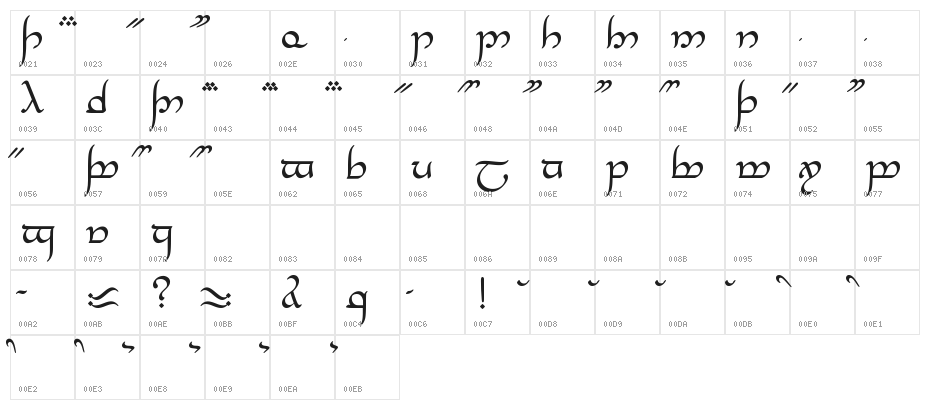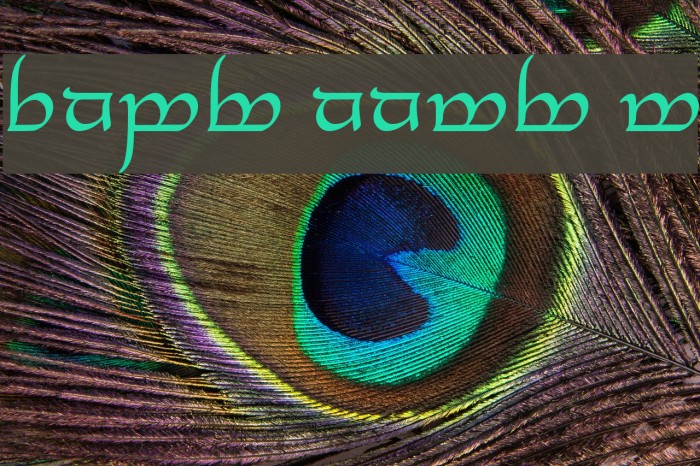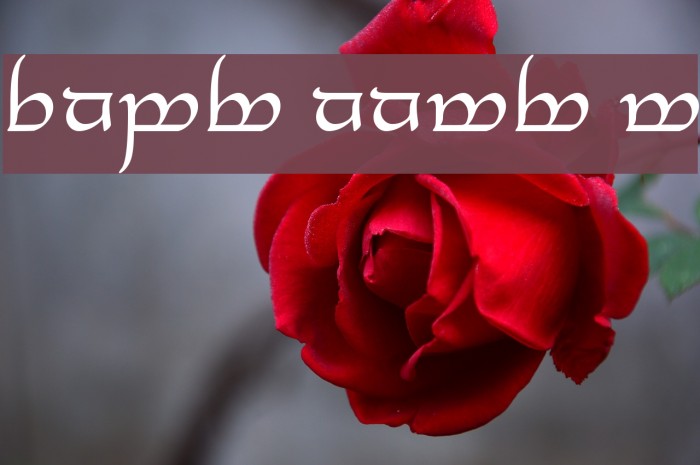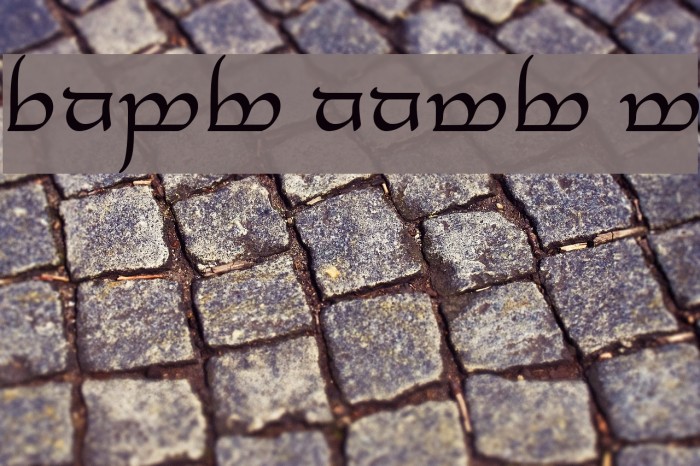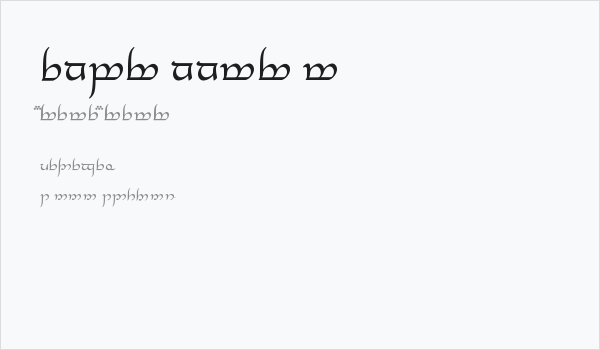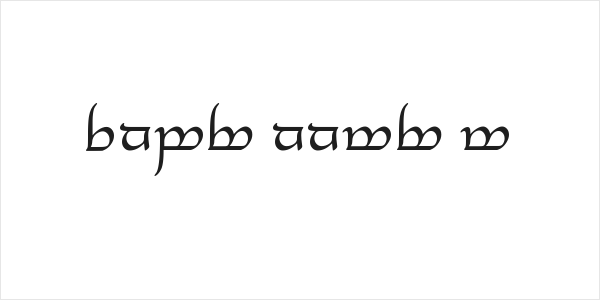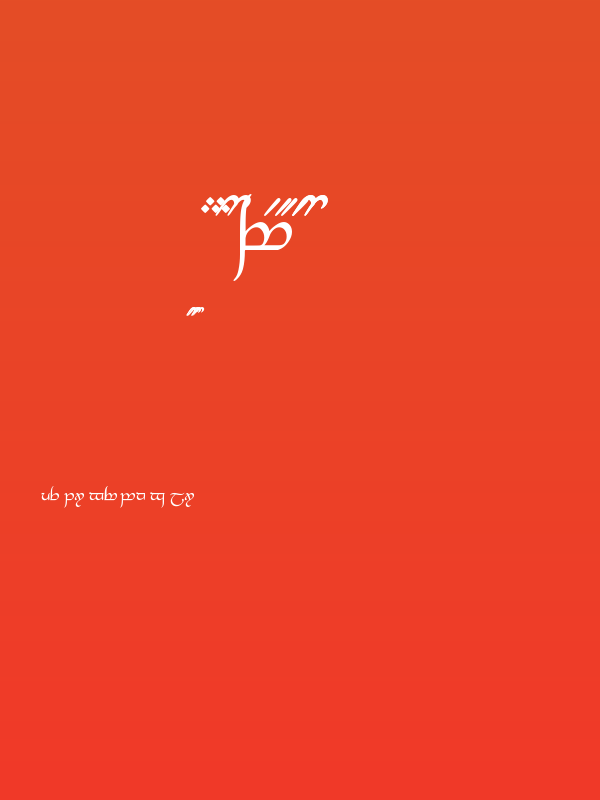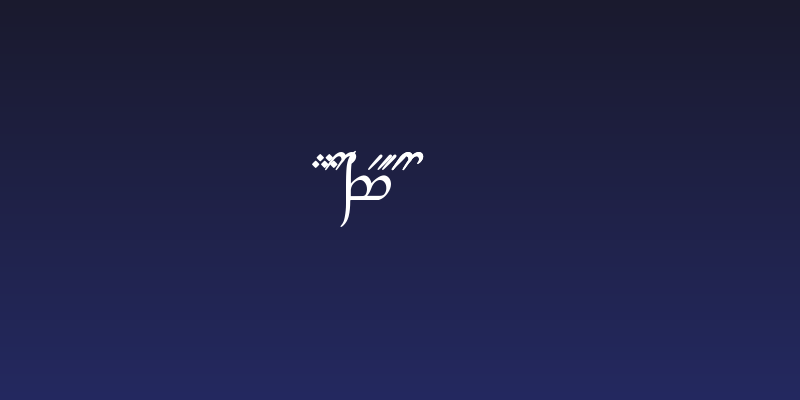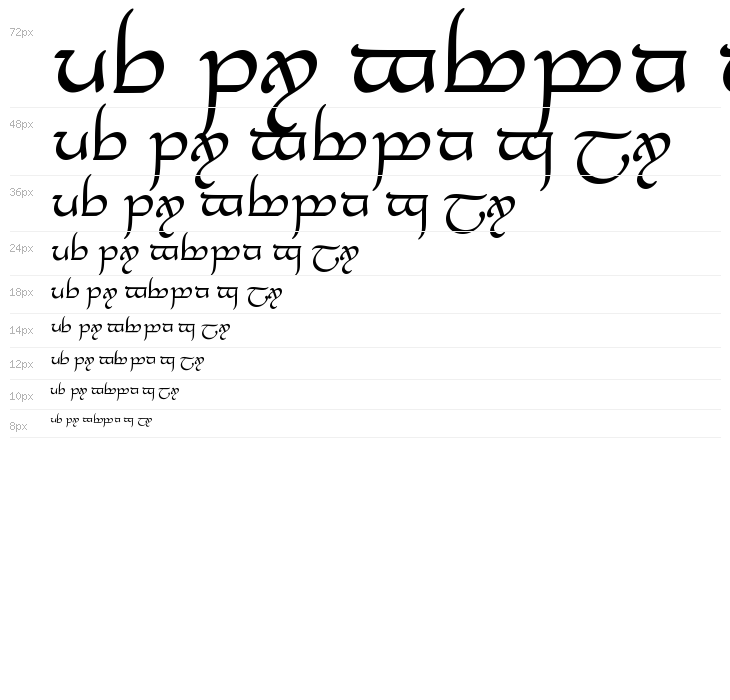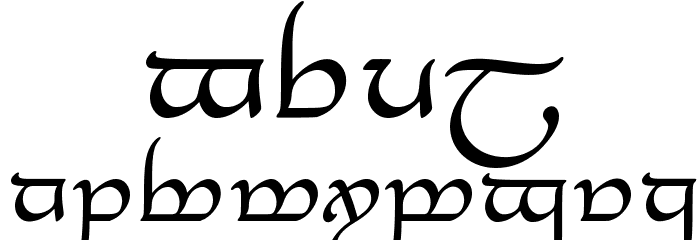
Tengwar Annatar Alt Font
Tengwar Annatar Alt Description
This font is a decorative script inspired by the fictional Elvish writing system from J.R.R. Tolkien's Middle-earth. It features elegant, flowing characters with intricate curves and flourishes, reminiscent of ancient calligraphy. The script is highly stylized, with each letterform exhibiting unique, ornate details that evoke a sense of fantasy and mysticism. The characters are interconnected with smooth, sweeping lines, creating a harmonious and fluid appearance. This font is perfect for projects that require a touch of fantasy or a connection to Tolkien's literary works.
| Overall Style | Fantasy, Mystical |
| Use Case | Logos, Posters, Book covers |
| Proposed Projects | Ideal for fantasy-themed projects, book covers, movie posters, and any design requiring a mystical or ancient aesthetic. |